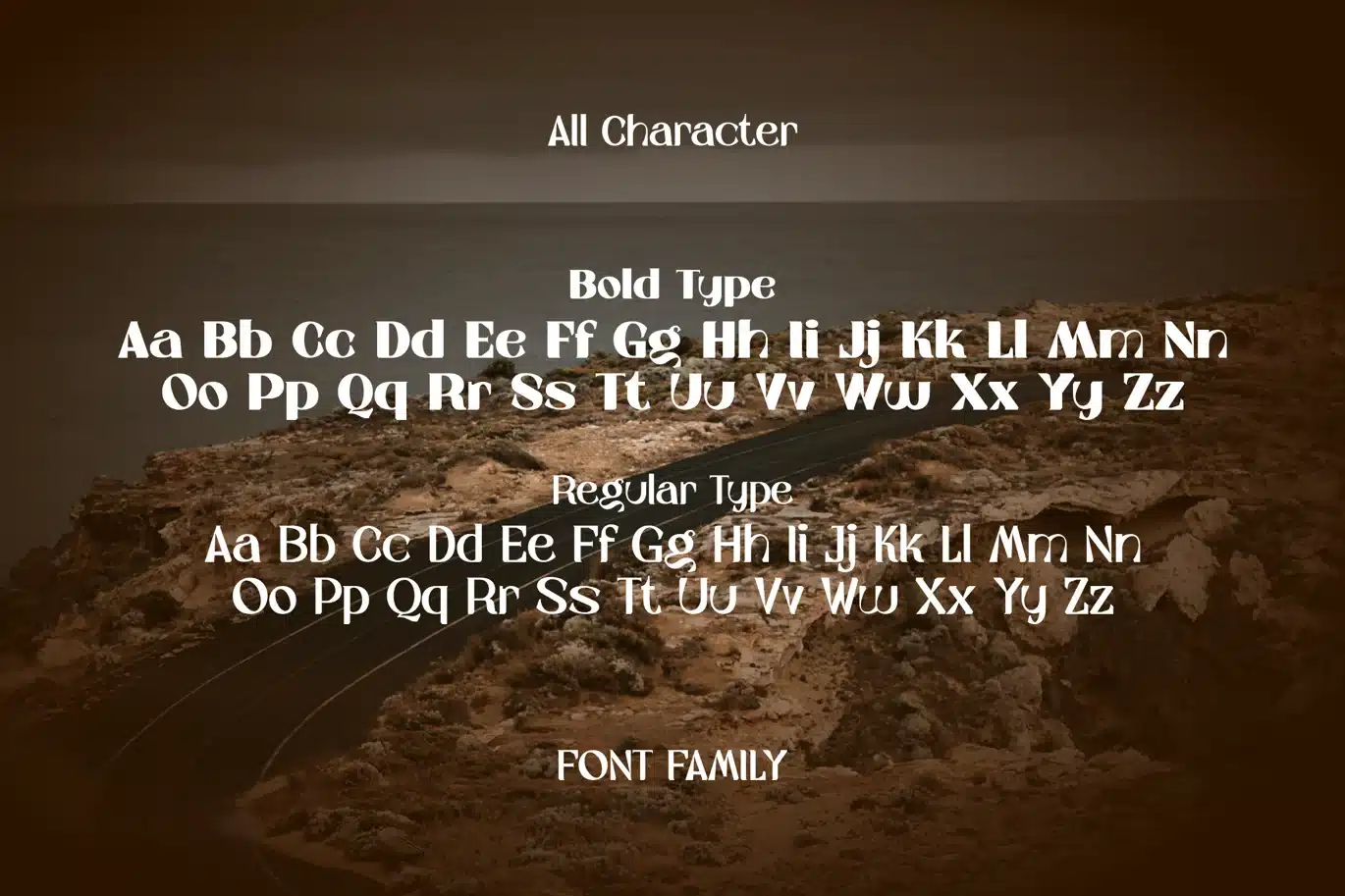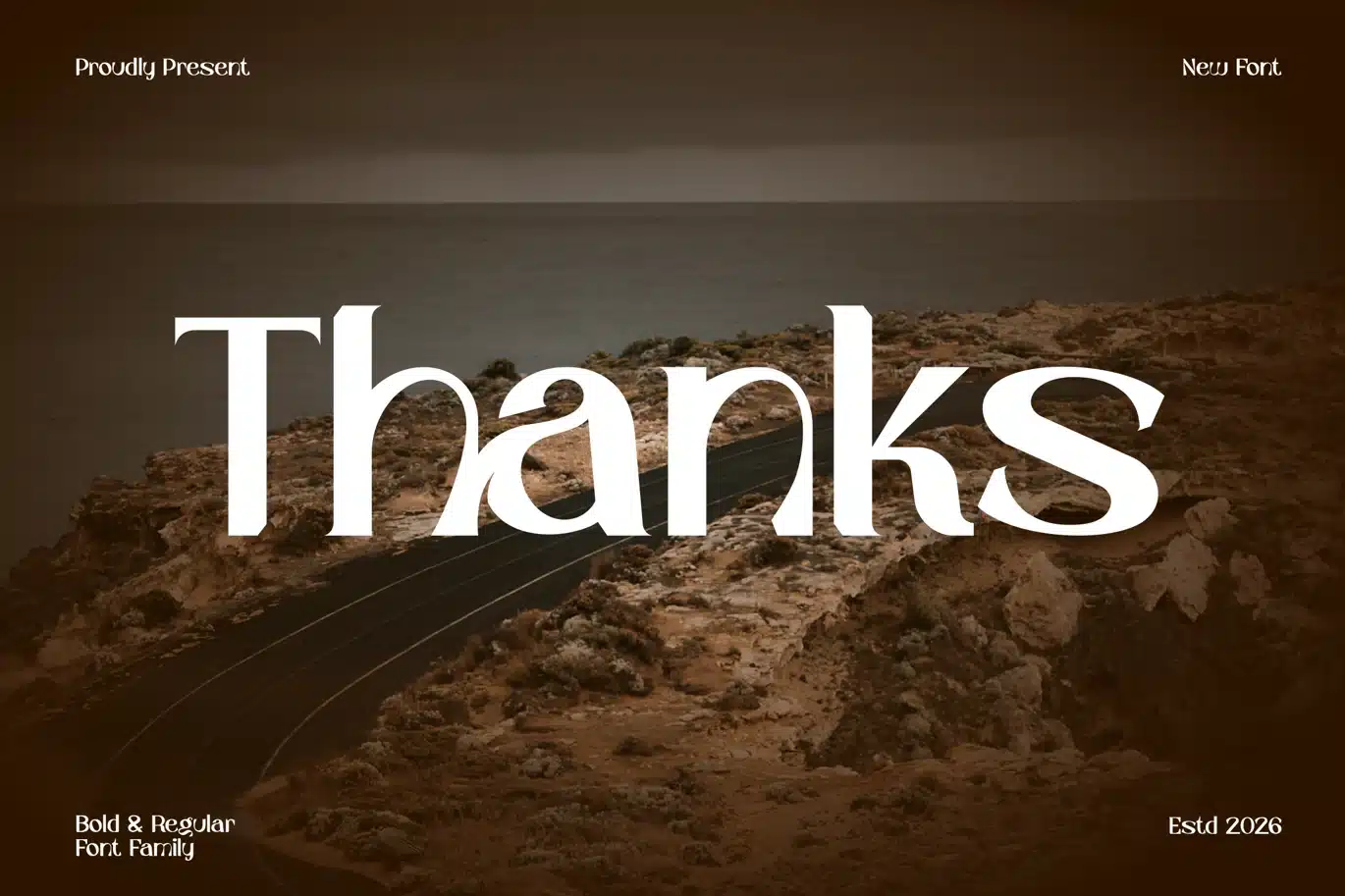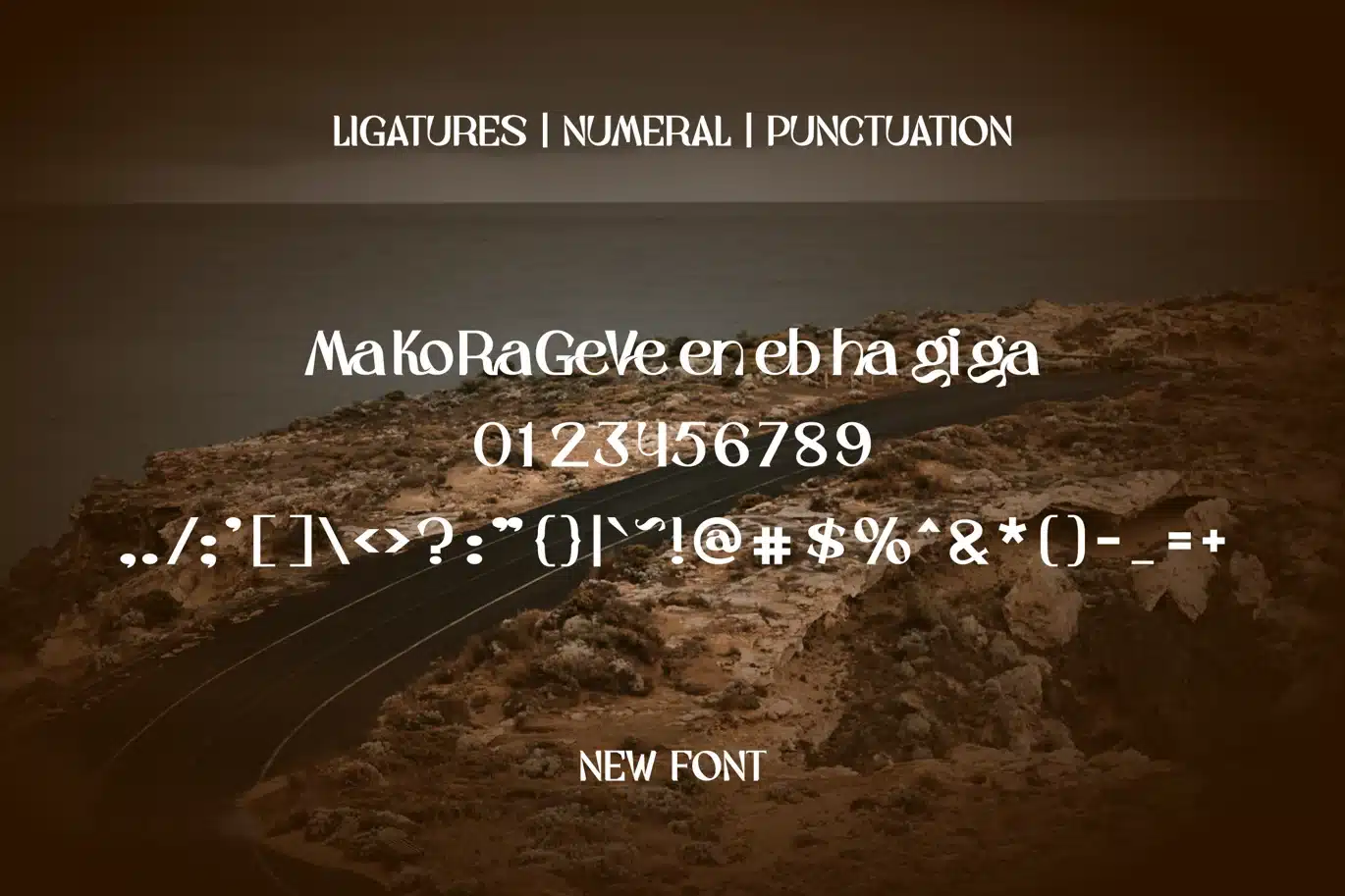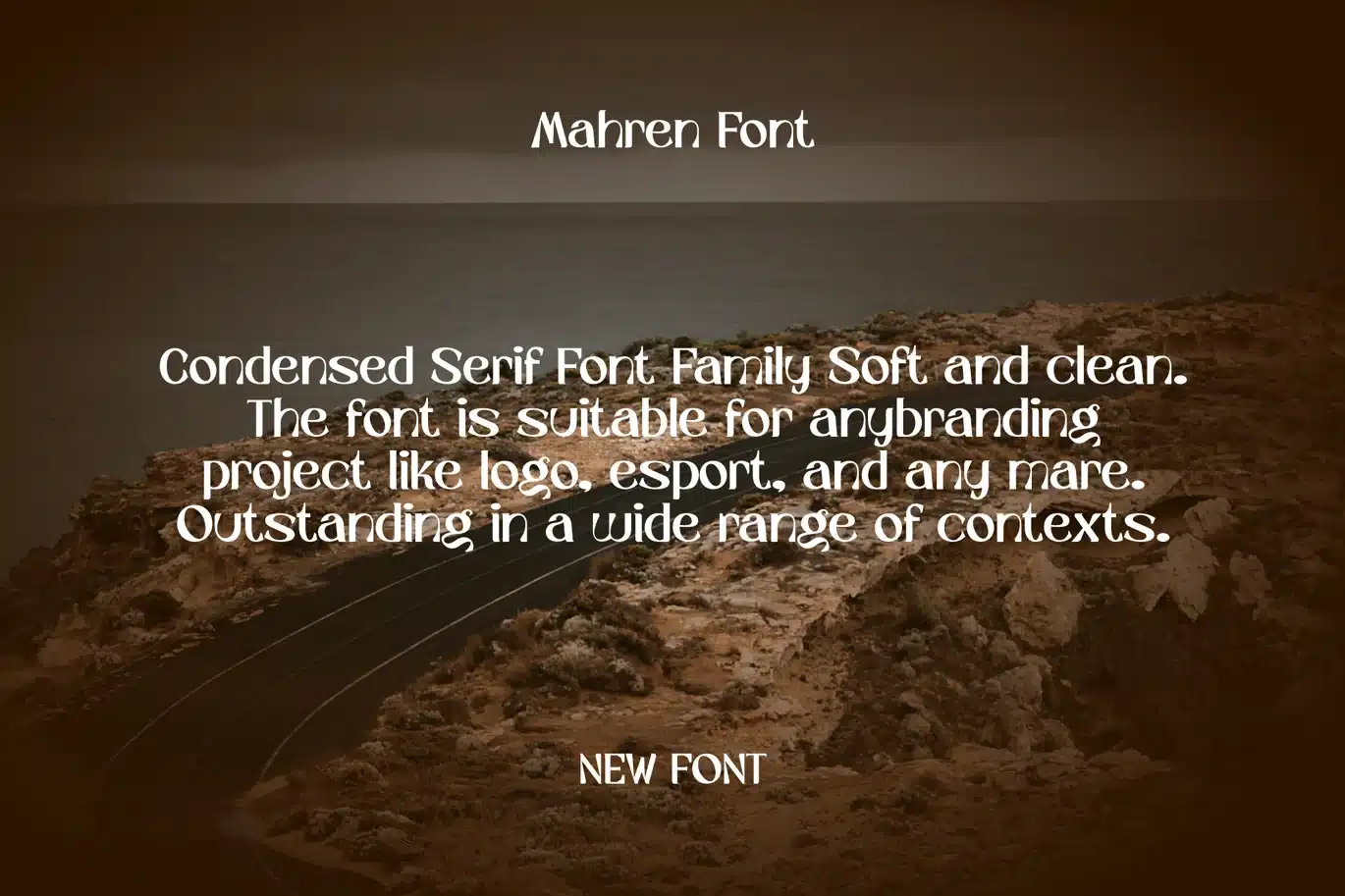
Mahren – Condensed Serif Font Family
Mahren is a super thick typeface with more traditional letter shapes, making it perfect for creating (or recreating) the concise look of film poster production credits.
Feature :
- Uppercase Characters
- Lowercase Characters
- Ligature Characters
- Punctuation & Numbers